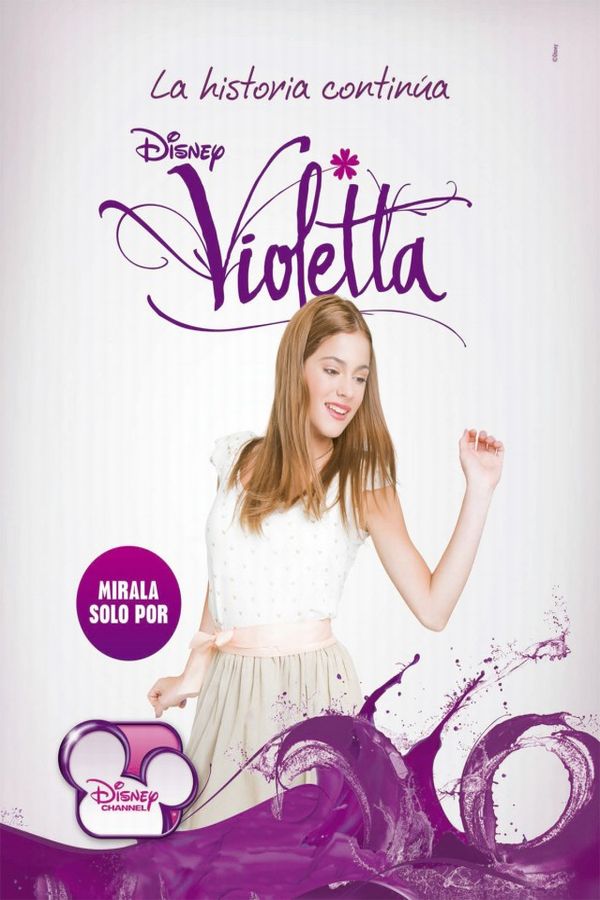
Violetta Font
Fonts in UseVioletta is an Argentine telenovela that follows the story of a musically talented teenager named Violetta, who moves to Buenos Aires to pursue her dreams and discover her true identity. The series premiered in 2012 and was later adapted into a film in 2016.
Likely, the lettering for Violetta was uniquely crafted, however, a typeface called "Violetta" was developed by Kustren as a replica of the show's lettering. The font comes in both regular and swash styles and can be downloaded for free from the Fonts Used Section.